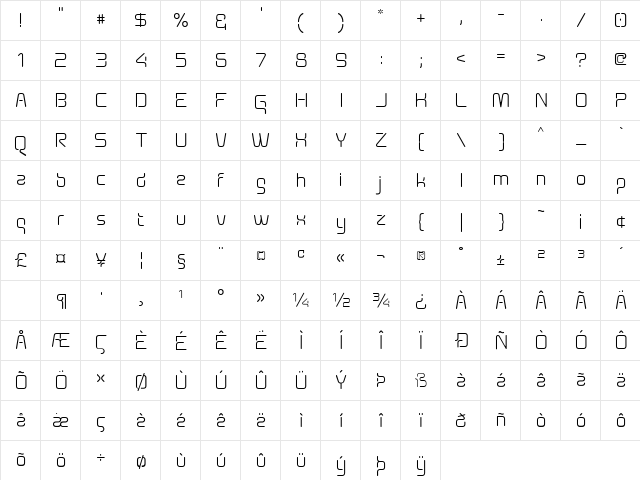
AunchantedXspace Regular Font Preview
AunchantedXspace Regular
AunchantedXspace Regular Font Details
Design Context for AunchantedXspace Typeface
AunchantedXspace is a composed and adaptable typeface that performs quietly and consistently across a wide range of design contexts.